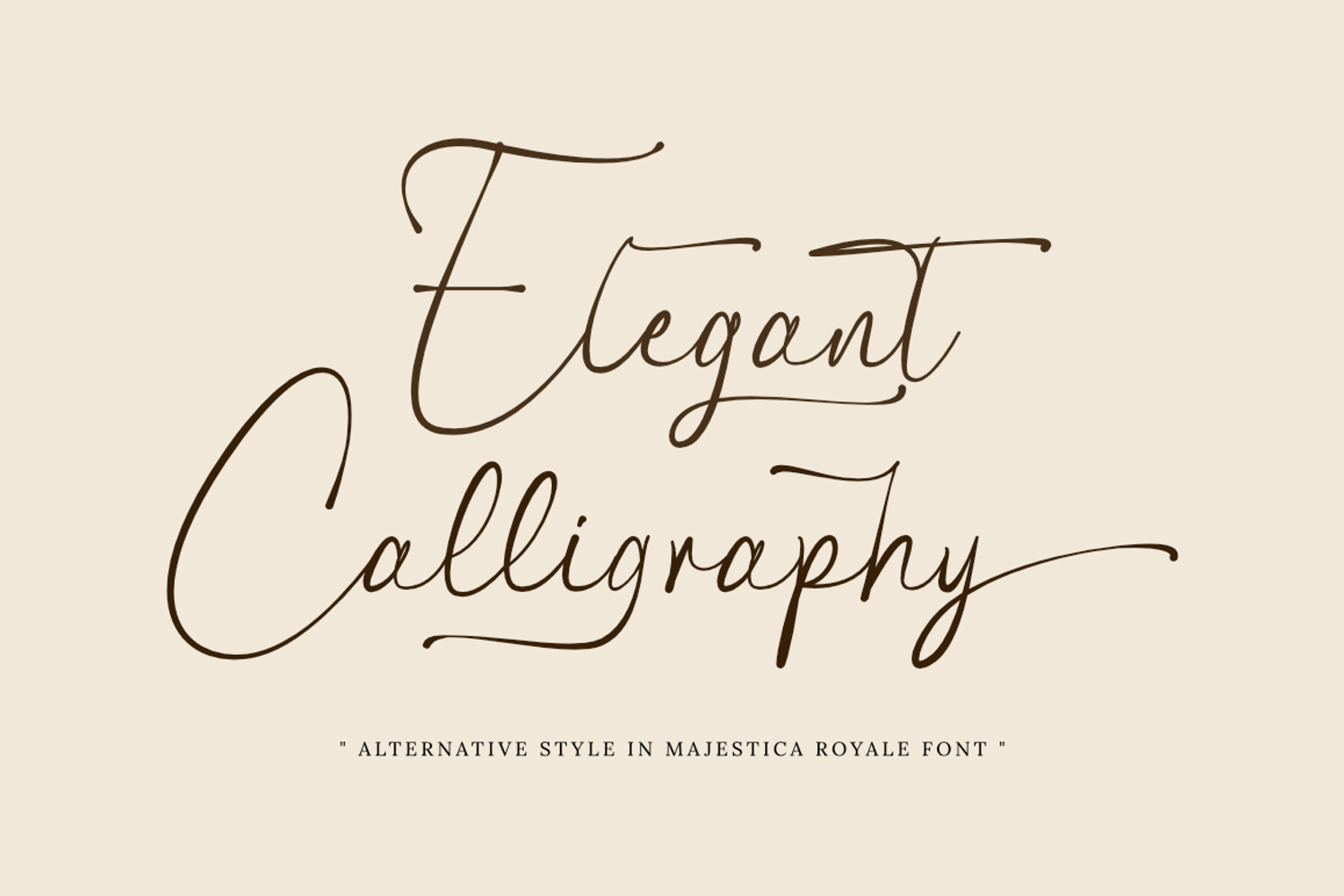
Majestica Royale - Luxury Script Font
Majestica Royale
Introducing Majestica Royale - Modern And Luxury Script Font
Majestica Royale is a premium script font designed for a luxurious and professional look. It combines the beauty of traditional calligraphy with a clean, modern touch.
If you are looking for a font that looks expensive, graceful, and easy to read, this is the perfect choice.
- Ligature
- Stylistic Set
- Swash Character